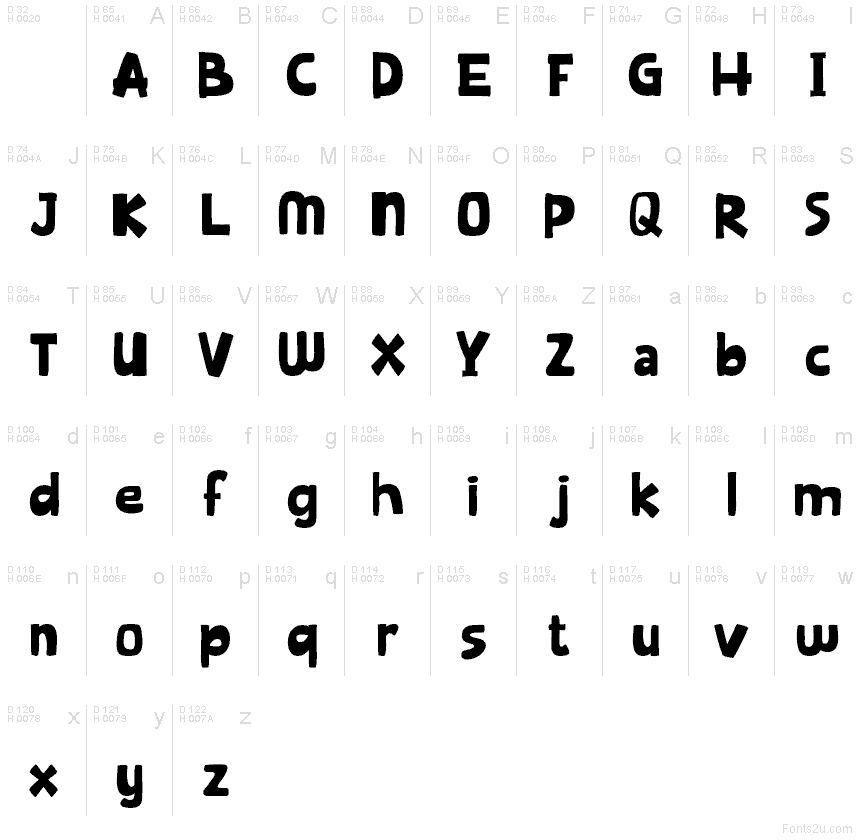
CS Roxby Regular Demo
CS Roxby font by Craft Supply Co. is a free bold cartoon font. It stands out with chunky, hand-cut shapes and a gentle wobble that gives every word a friendly, squishy bounce. Rounded terminals and softly pinched joins create a playful rhythm, while the high x-height keeps letters readable even when they’re packed in tight. The inky, slightly irregular edges feel tactile—like cut foam or marker lettering—without turning messy.
This free font shines on kids’ branding, snack or toy packaging, playful posters, event flyers, YouTube thumbnails, and sticker sets. Using CS Roxby instantly adds warmth and wink-worthy personality while keeping headlines loud and legible. Pair it with a clean geometric sans for body copy, and give it generous size with a touch of loose tracking to let those curves breathe.